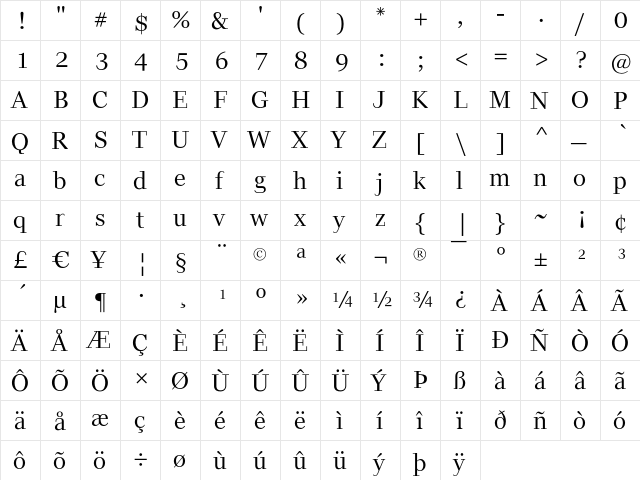
Interviewer Regularly
Design Context for Interviewer Typeface
Interviewer takes a measured approach to typography — its balanced proportions and neutral character make it a reliable workhorse for both digital and print work.